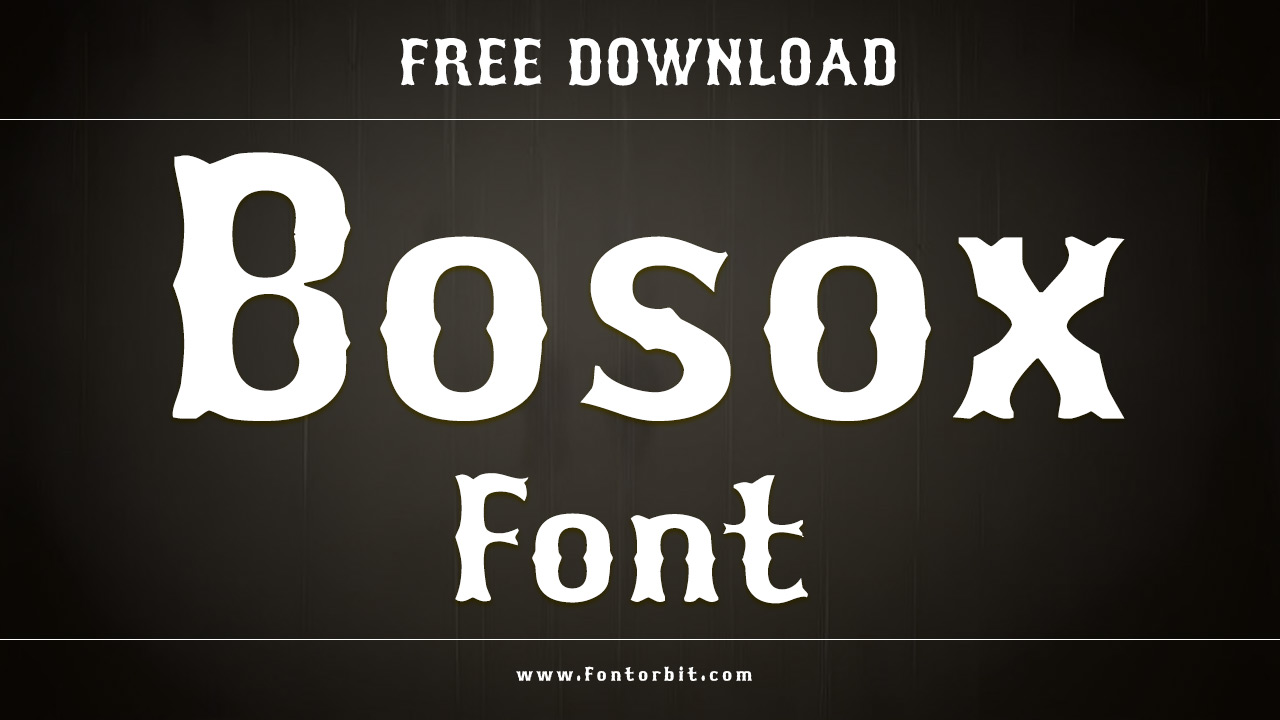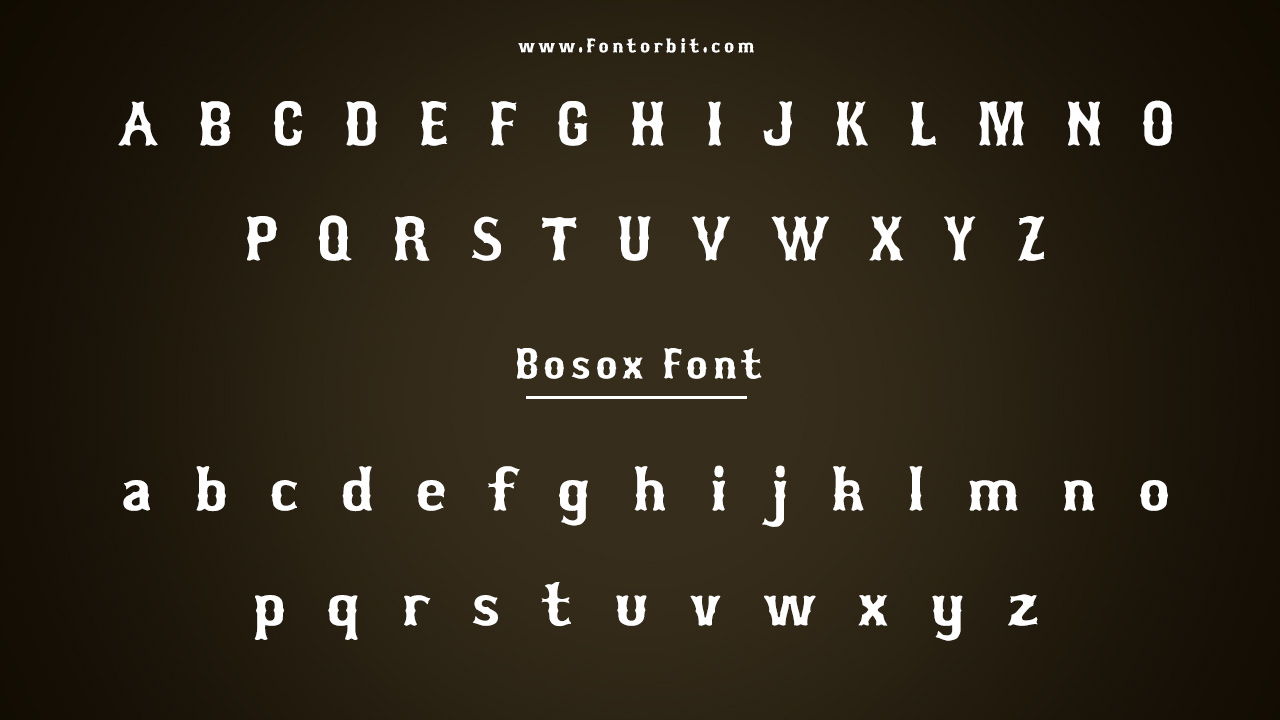
The Bosox Font is a decorative typeface designed with a vintage flair, inspired by the iconic Boston Red Sox logo. This Western-style font by Lee Gordon is versatile, perfect for logos, branding materials, and sports-related designs. With its unique spurred letterforms and bold outlines, Bosox captures the essence of classic Americana, making it a standout choice for designers.
Type Of The Bosox Font (Font Family)
Font Variants:
- Bosox Regular
- Bosox Full
- Bosox SemiBold
- Bosox Outline Regular
- Bosox Outline Heavy
These variants ensure that you have the flexibility to create dynamic typography with different weights and styles.
Using Occasions Of The Bosox Font
The Bosox Font Family is ideal for a variety of design applications, particularly those that call for a vintage, Western, or decorative aesthetic. Some common uses include:
- Logos: Perfect for creating sports logos or branding with a vintage touch.
- Branding Materials: Great for giving stationery, posters, and flyers a bold, decorative edge.
- Typography Projects: Adds a Western or retro flair to headlines and titles.
- Websites: Enhances visual appeal in sports or entertainment-themed web designs.
- Printed Materials: Suitable for event signage, banners, and brochures.
Bosox Font Found In Use
The Bosox Font’s distinctive design makes it a favorite for sports-themed designs, especially baseball-related projects. Its bold letterforms with spurred detailing stand out on everything from branding material to digital typography. With its rich character map and versatile style, Bosox is also frequently used in Pinterest projects and design boards that emphasize Western fonts and vintage aesthetics.
The Bosox Font stands out with its decorative and Western-inspired design, making it a perfect choice for sports logos, vintage branding, and bold typography projects. Whether you’re creating headlines, signage, or digital graphics, Bosox offers the flexibility and charm to make your designs shine.